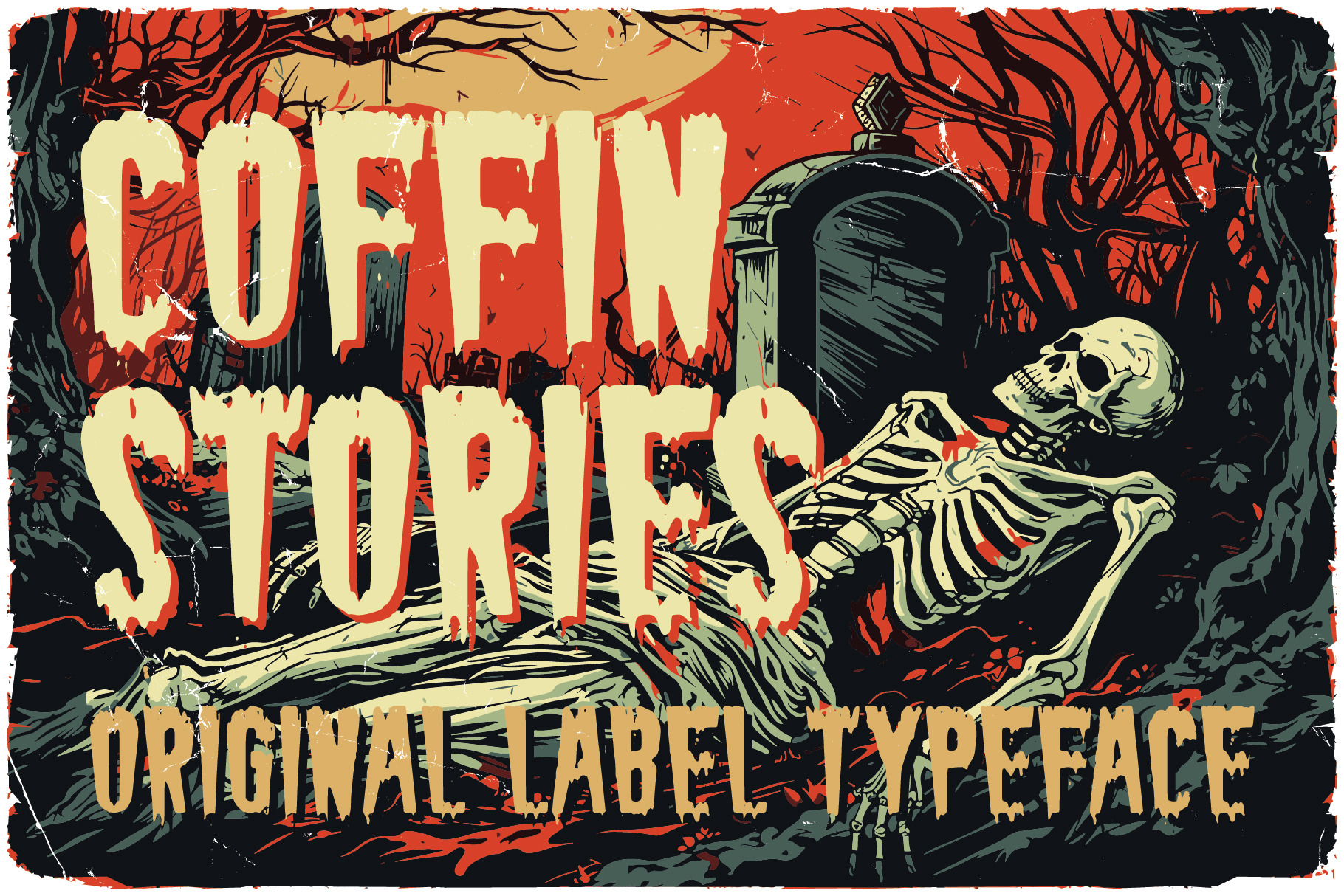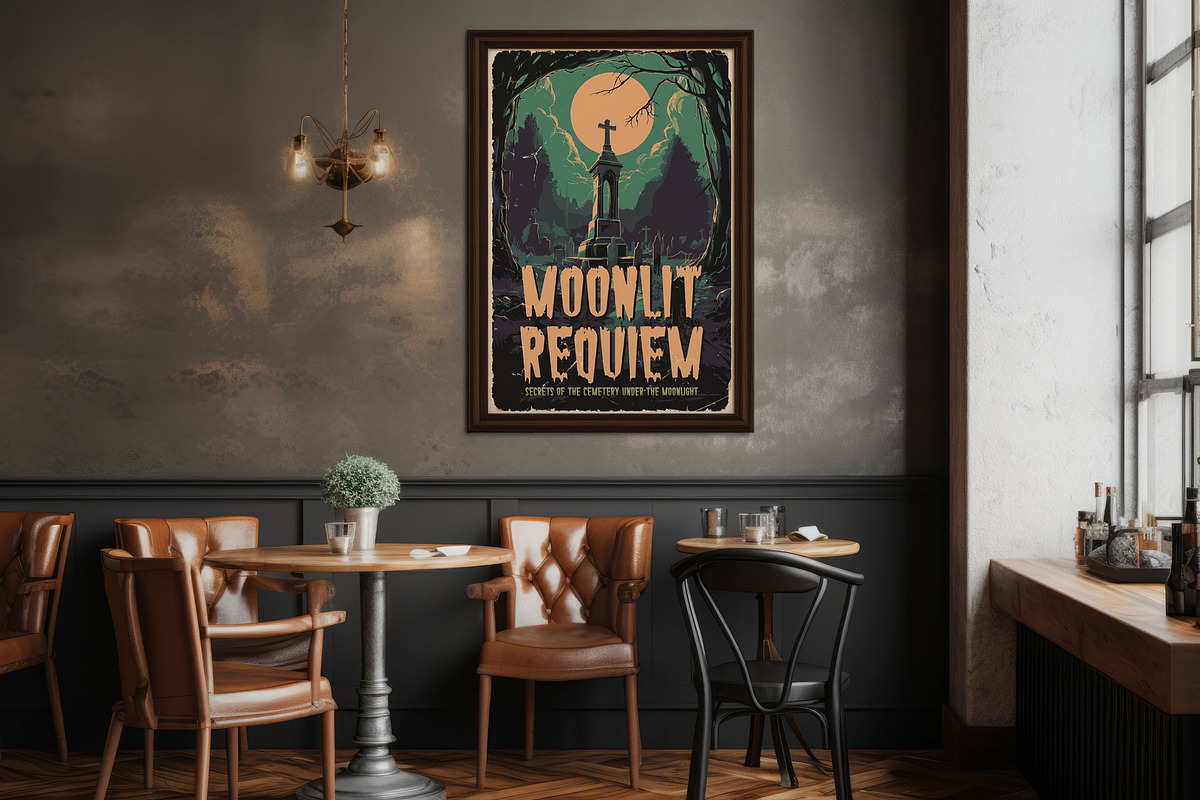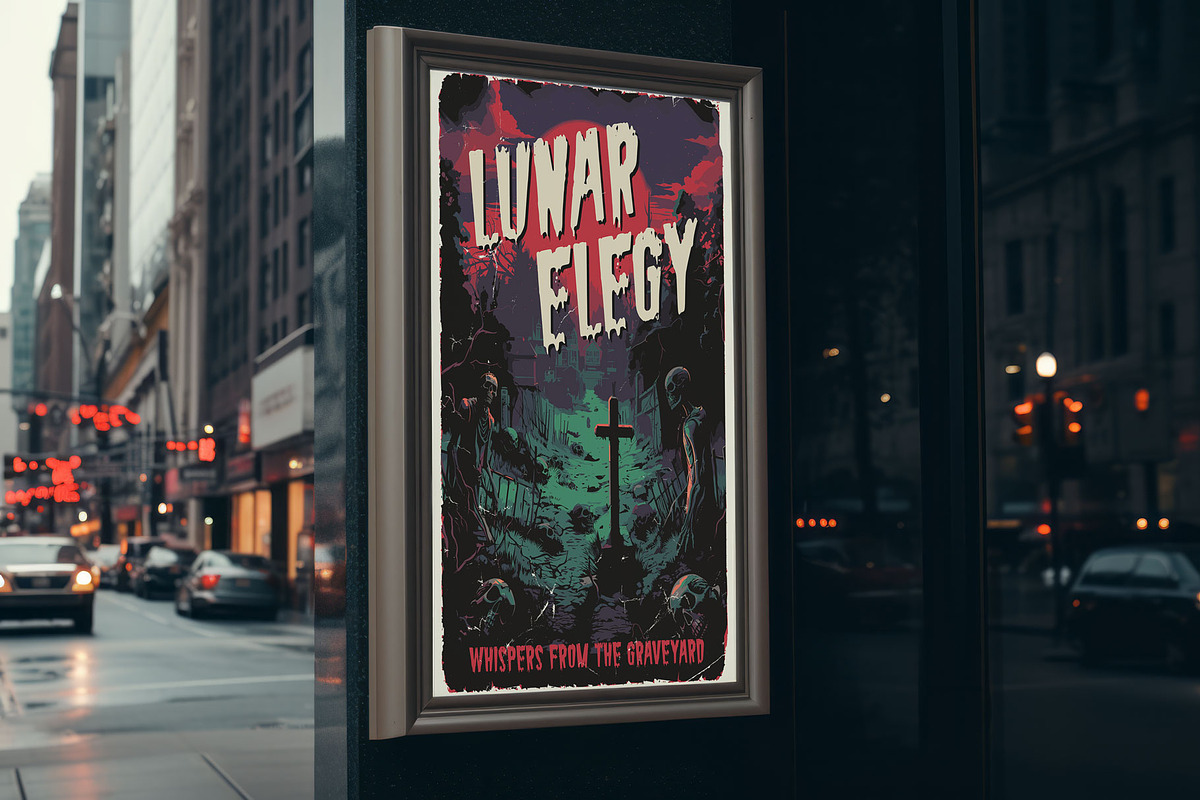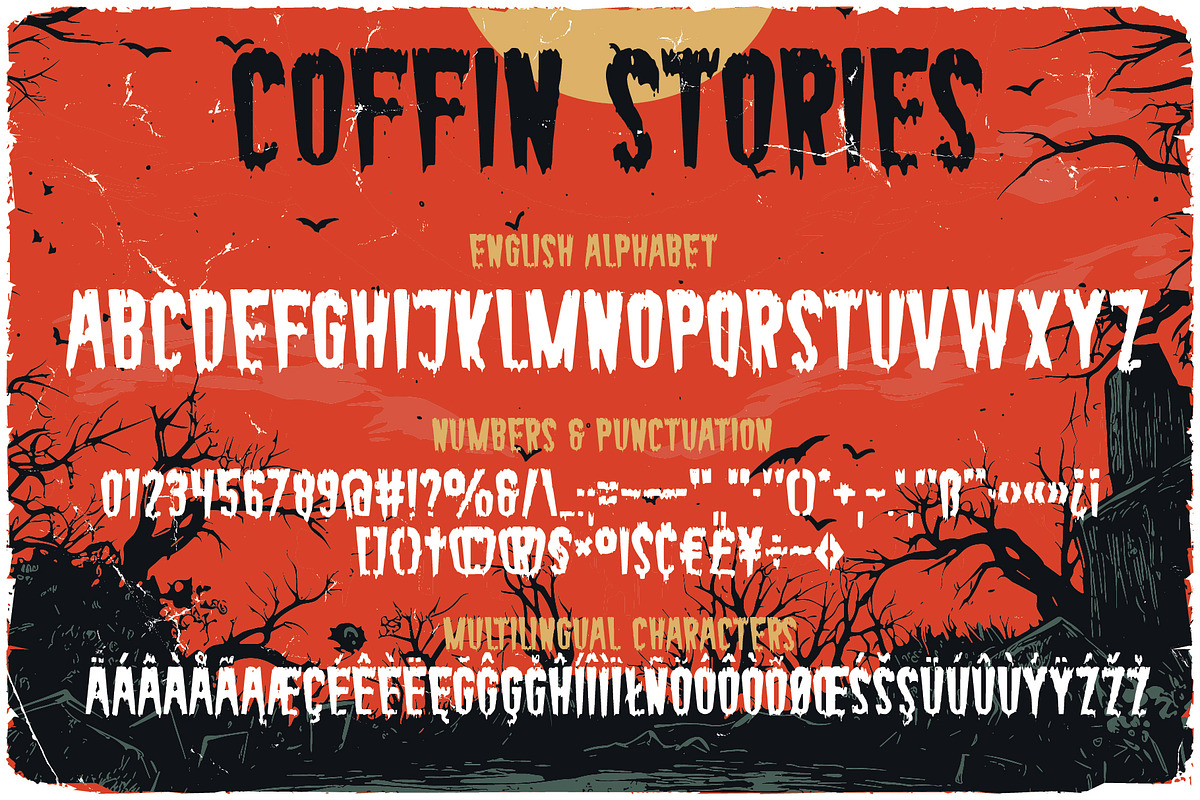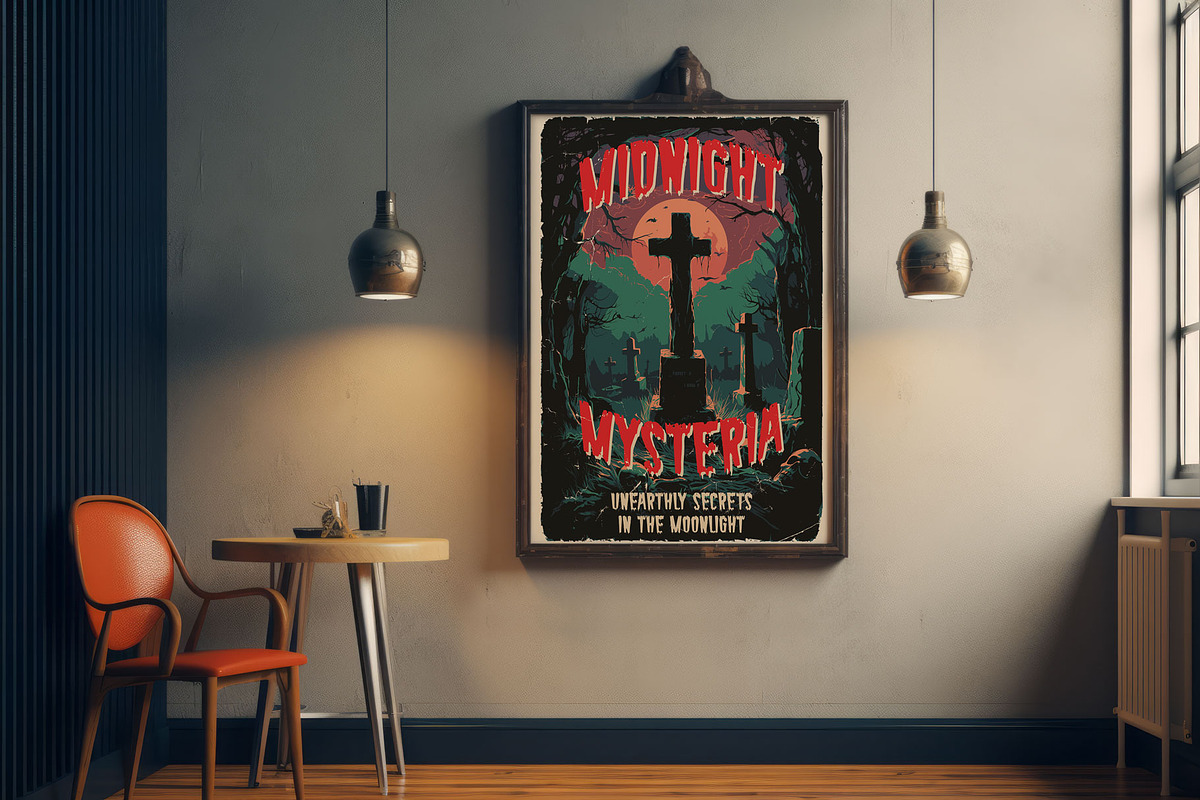
Coffin Stories label font
Description: Step into the hauntingly nostalgic world of 80s horror films with 'Coffin Stories,' a meticulously handcrafted font that channels the chilling essence of vintage movie posters. This font will infuse your designs with the eerie charm and crafty appeal you've been seeking.
What Awaits You:
Unique Font: 'Coffin Stories' boasts meticulously designed letters, numbers, and additional characters inspired by the spine-tingling aesthetics of the 80s.
Multilingual Mastery: Your audience knows no bounds with our font, offering complete multilingual support.
Why 'Coffin Stories' is the Choice for You:
- Recreate the authentic atmosphere of vintage horror films with this unique font.
- Elevate your poster designs, t-shirt graphics, and logos with an unmistakable crafty touch.